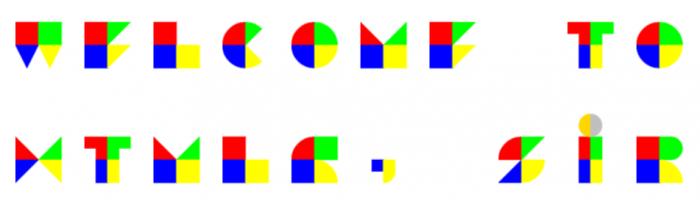
• A Six-colored 2x2 all-caps mono font (But with dots on small i and j) used to demonstrate the color features of Fontstruct, one of the three entries intended to go to the ColorComp competition
Not all glyphs use all six colors. The fifth and sixth colors (Gold and Silver) are reserved for diacritical marks (Including strokes that can be placed inside the glyph) while some glyphs may not use all four main colors (Red, Green, Blue, Yellow)
Kinda resembles the colors in the Windows logos…